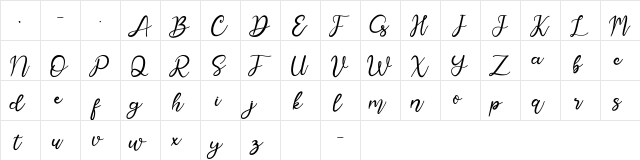
Aylogri Regular
| Designer | Andri Ardianto - Madatype Studio |
Design Context for Aylogri Typeface
Aylogri is a composed and adaptable typeface that performs quietly and consistently across a wide range of design contexts.